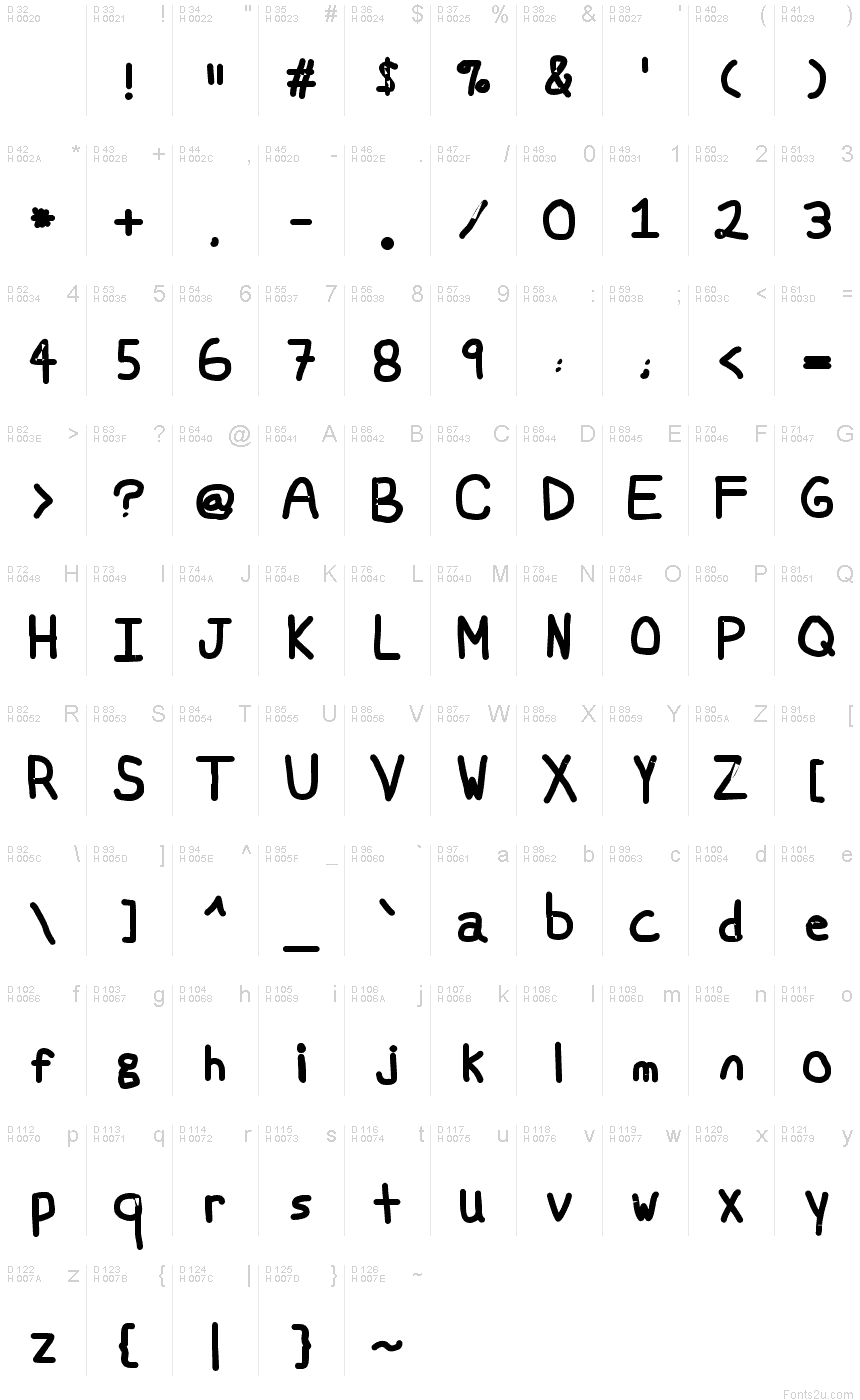
Swabby Condensed Bold by Brian Sullivan is a free cartoon display font with broad, rounded strokes and an easygoing hand-drawn shape. The letters shift in width and lean, so the line has a lively, uneven silhouette. Soft curves and blunt endings keep the substantial forms friendly rather than severe.
A children's event poster is a good setting for its playful weight and loose construction, with related uses in toy packaging, game graphics, and casual merchandise. Across those projects, the rounded forms can echo simple illustrated characters, bubbles, or hand-painted signs.